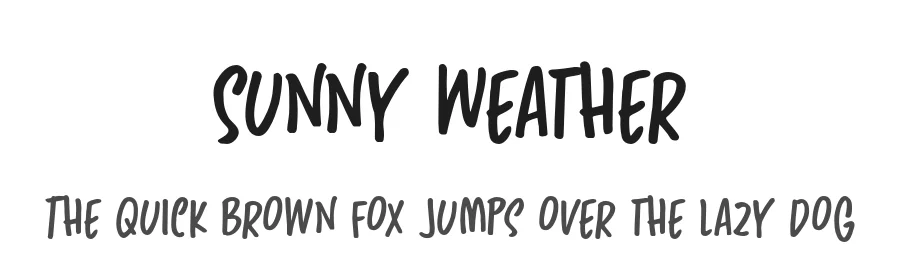
About Unless Font
Font By Gassstype Studio
Unless Specifications
| Font Family | Unless |
| Full Name | Unless |
| Glyph Count | 245 glyphs |
| PostScript Name | Unless |
| Designer | Anang F & Malik Wsn | GassstypeΒ© Studio 2021 |
Unless Font is a script font that shines as a display or heading face. Pair it with a clean sans-serif or serif font for body text β the contrast creates a clear hierarchy while the two styles stay balanced and easy to read.